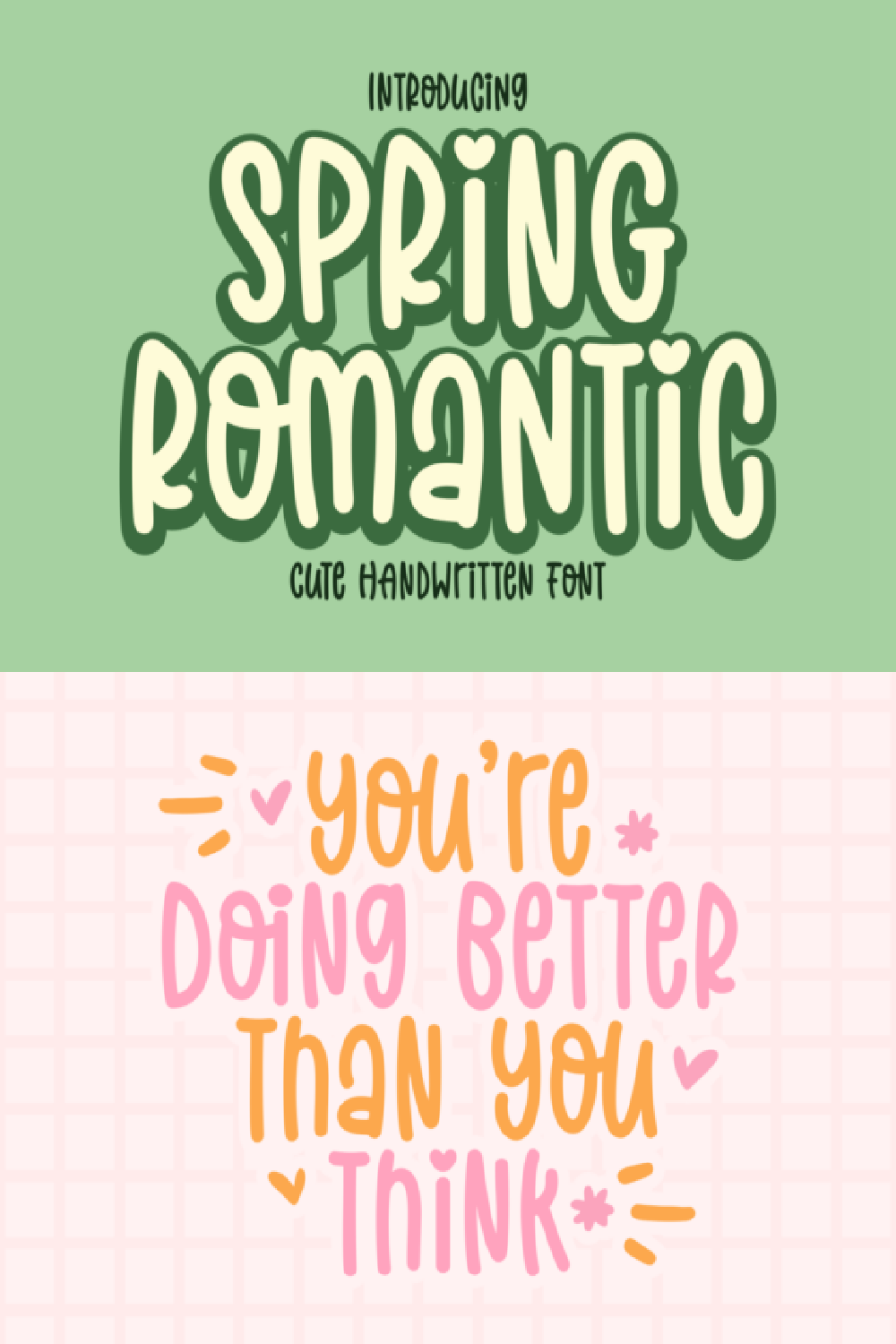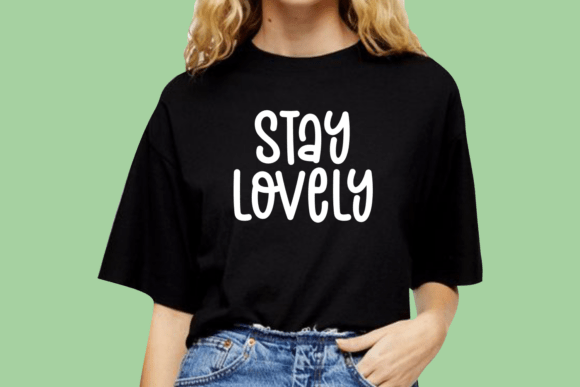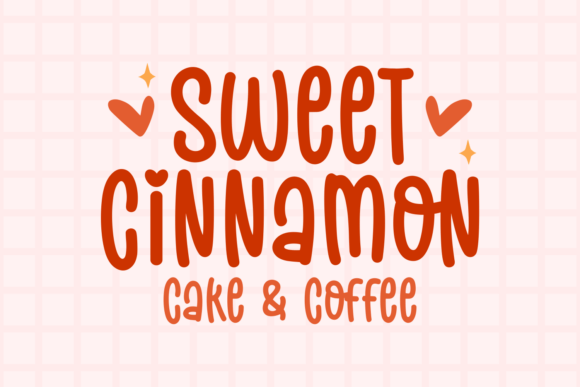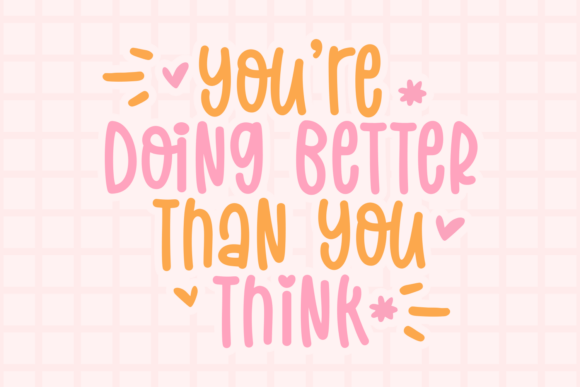
Spring Romantic Font
About the Spring Romantic Font
The Spring Romantic Font is here to transform your projects with its distinctive character and style. Introducing “Spring Romantic”, a whimsically playful font with a delicately handwritten style. Perfect for giving a personal touch to your crafts, it fosters a sense of joy and creativity. Picture it adorning t-shirts, enhancing the charm of mugs, or as an elegant statement on a wall display. Unleash your imagination with “Spring Romantic” and let the fun begin. This font is truly a celebration of springtime romance, an embodiment of the joy and freshness of the season, distilled into a beautiful typeface.